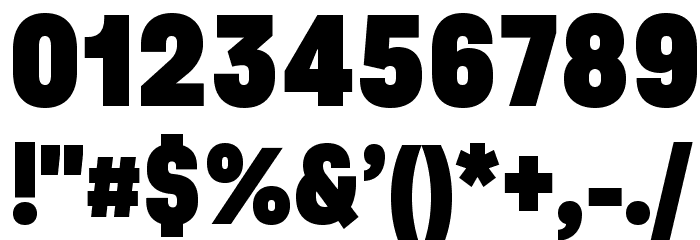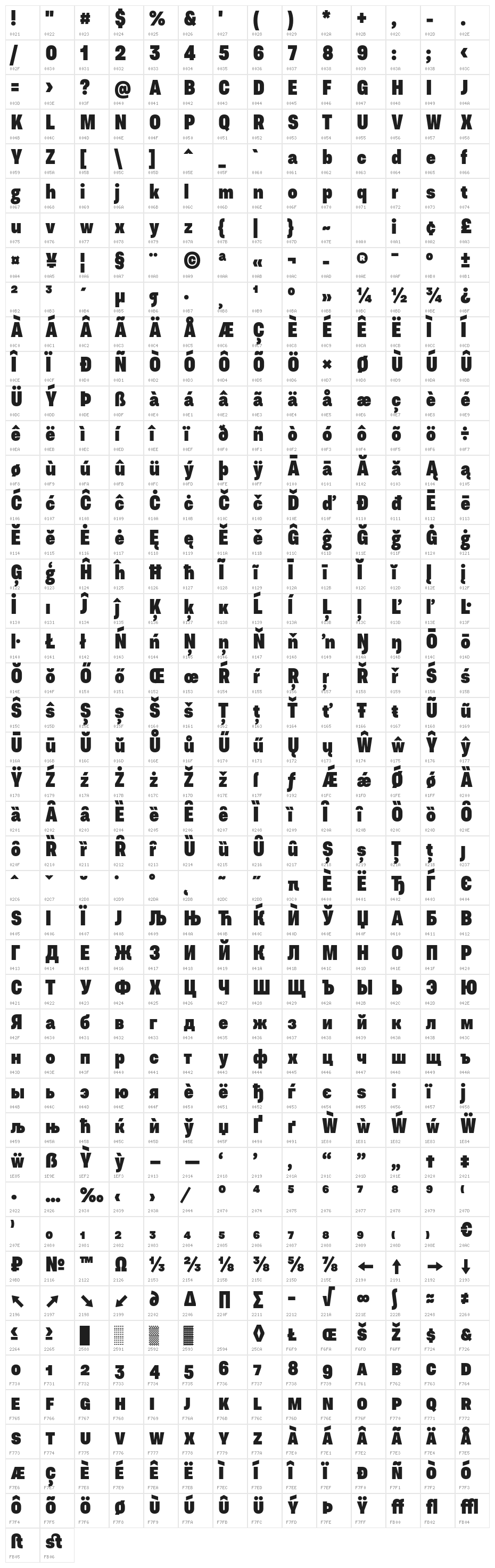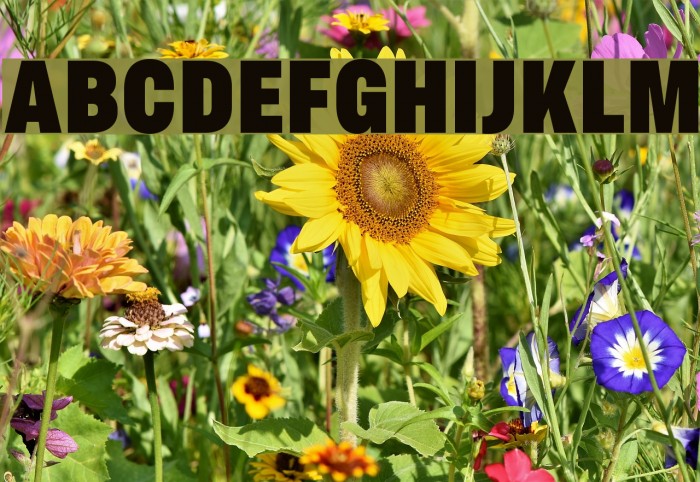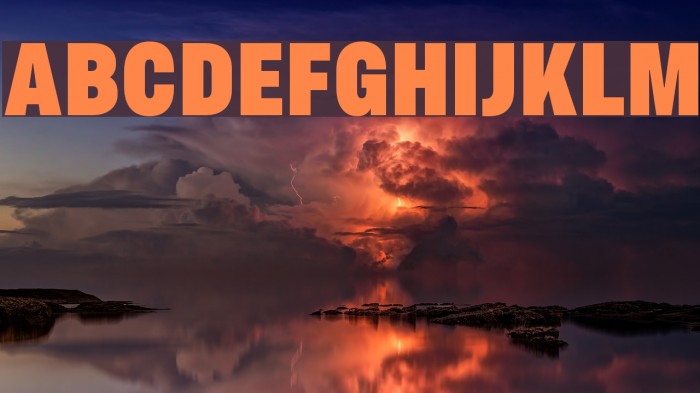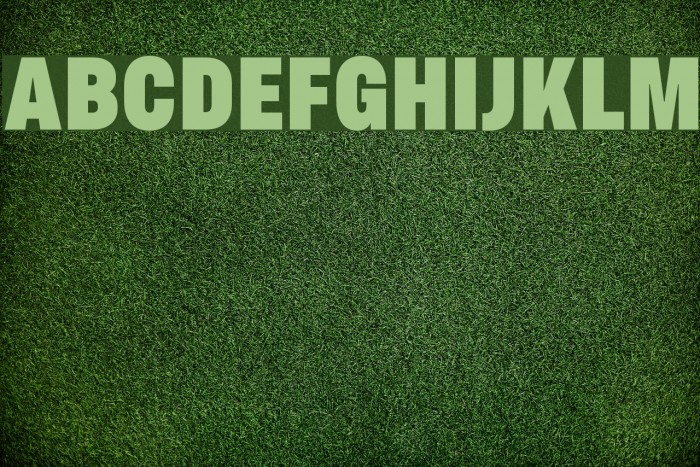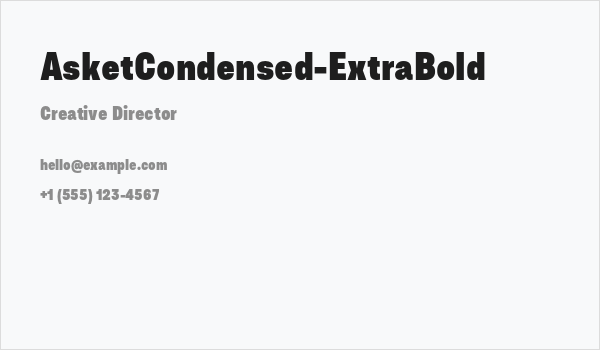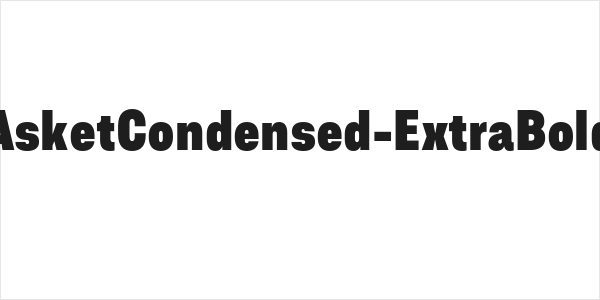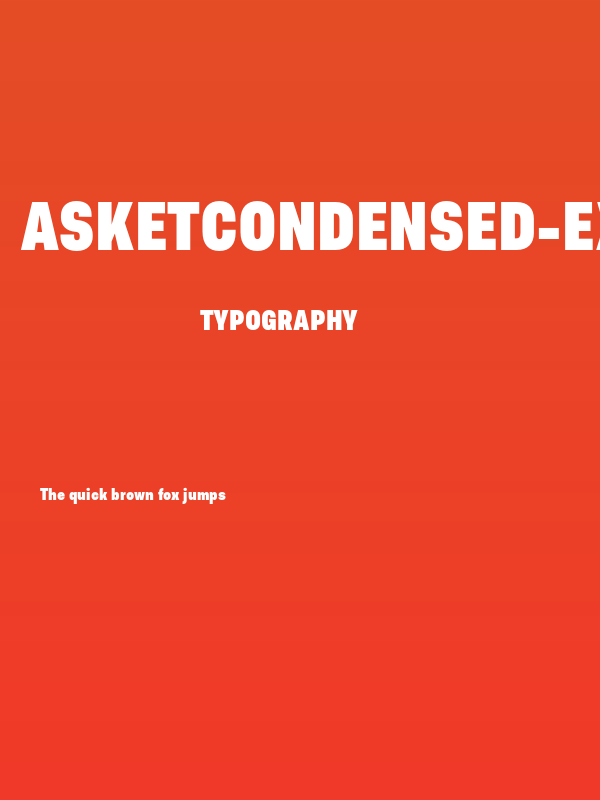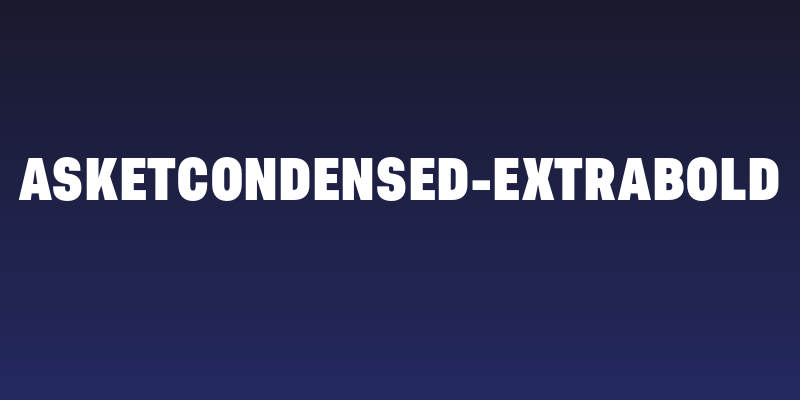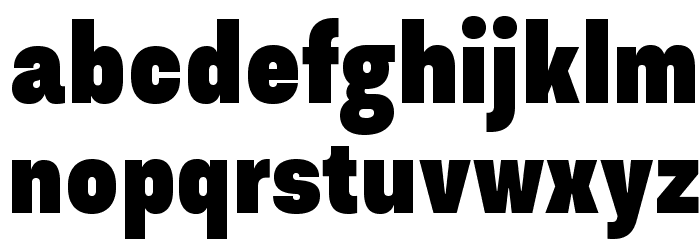
AsketCondensed-ExtraBold Font
AsketCondensed-ExtraBold Description
This typeface features a bold and impactful design with thick, uniform strokes that convey strength and confidence. The condensed nature of the characters allows for efficient use of space, making it suitable for headlines and attention-grabbing text. The uppercase and lowercase letters are well-proportioned, maintaining readability despite the boldness. The numerals are clear and consistent with the overall style, while the special characters are distinct and easily recognizable. This font's robust appearance makes it ideal for projects that require a strong visual presence.
| Proposed Projects | Ideal for advertising, posters, branding, and any project needing a strong visual impact. |